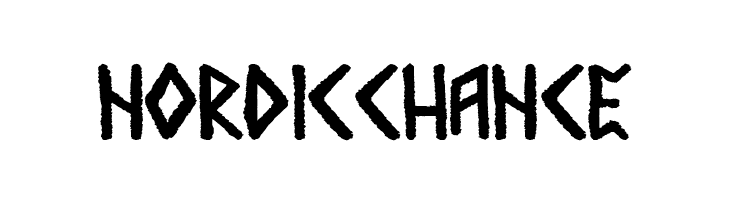
Hand-drawn, rune-inspired display font with rough, angular strokes.
A bold, angular font inspired by ancient runic alphabets.
A bold, runic-style font with a rugged, ancient appearance.
A bold, runic-inspired font with a rugged, historical aesthetic.